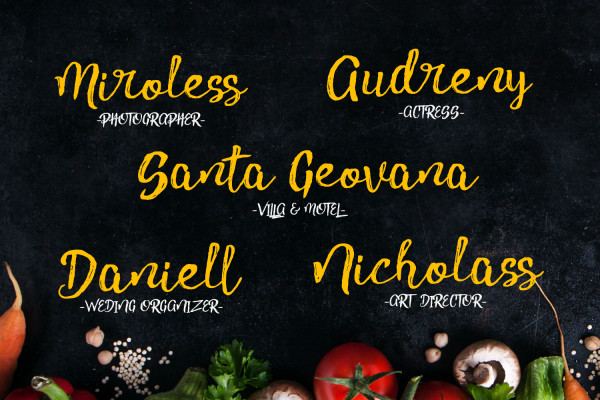
Pink Gladiolus Font
Pink Gladiolus Font is a sweet and bold script with a unique style. It will turn any design project into a true standout.
Designer Name: madeDeduk